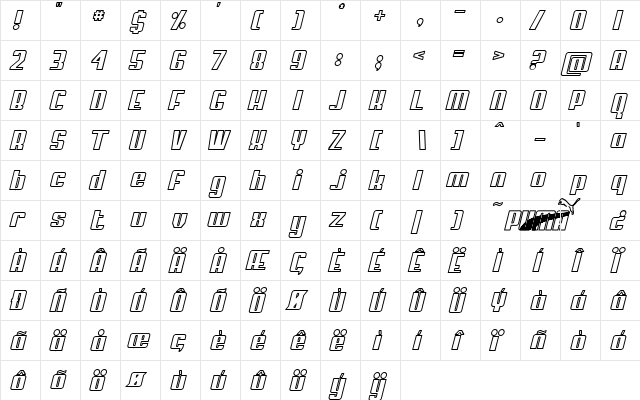
My Puma Oblique Outlined Regular
Design Context for My Puma Oblique Outlined Typeface
My Puma Oblique Outlined is built around its visual character rather than neutral utility — its distinctive forms are designed to make an impression at display sizes. The dynamic lean of this cut emphasises speed and emphasis in any layout.
Font Pairing: Pair with a clean neutral sans-serif for body copy to let My Puma Oblique Outlined's character lead without overwhelming the composition.
Pro Tip: Treat My Puma Oblique Outlined as the centrepiece of your typographic hierarchy. One strong heading set in a decorative face can carry an entire layout.